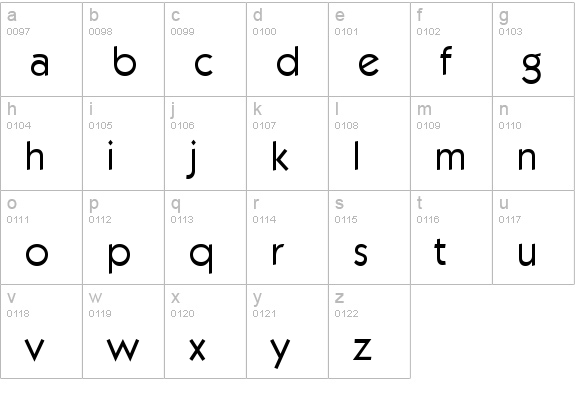
Koblenz-Regular Font Details
Koblenz-Regular is the standard, neutral variant in the Koblenz typeface family \xE2\x80\x94 well suited to general body text, paragraphs, and standard typographic work.
Koblenz-Regular font is a timeless and versatile typeface that effortlessly combines elegance with readability. Its clean lines and balanced proportions make it suitable for a wide range of design projects, from branding to editorial design. The classic yet modern look of Koblenz-Regular font is sure to make your text stand out and leave a lasting impression. Best of all, Koblenz-Regular font is available for free download at FontsMarket.com. Whether you're a designer, student, or hobbyist, you can easily access this high-quality font without any cost. Don't miss out on the opportunity to enhance your projects with the sophisticated charm of Koblenz-Regular font – download it today and elevate your designs to the next level.